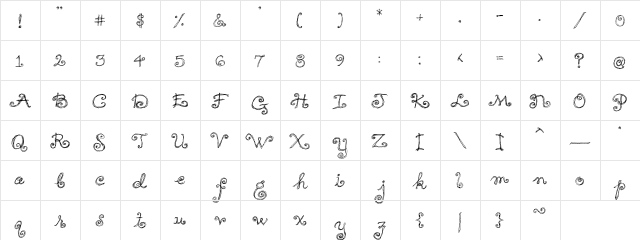
CB Wispy Regular Font Preview
CB Wispy Regular
Design Context for CB Wispy Typeface
CB Wispy is a composed and adaptable typeface that performs quietly and consistently across a wide range of design contexts.
Pro Tip: Use CB Wispy in both headline and body roles to test its range before committing to a single application.